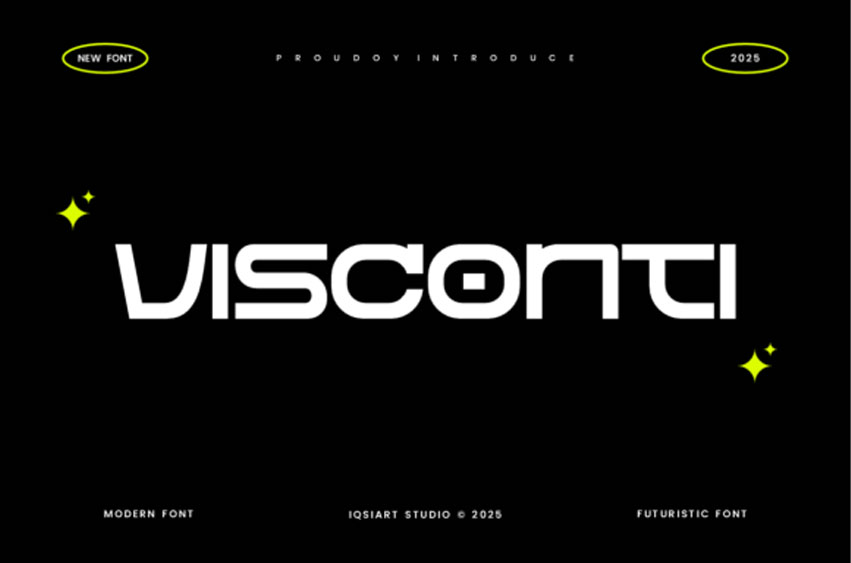
Visconti Font is a cutting-edge, futuristic sans serif font with clean, minimalist shapes and a sci-fi feel.
Its unique letterforms make it a great fit for tech startups, space-themed projects, gaming titles, and forward-thinking brand identities.